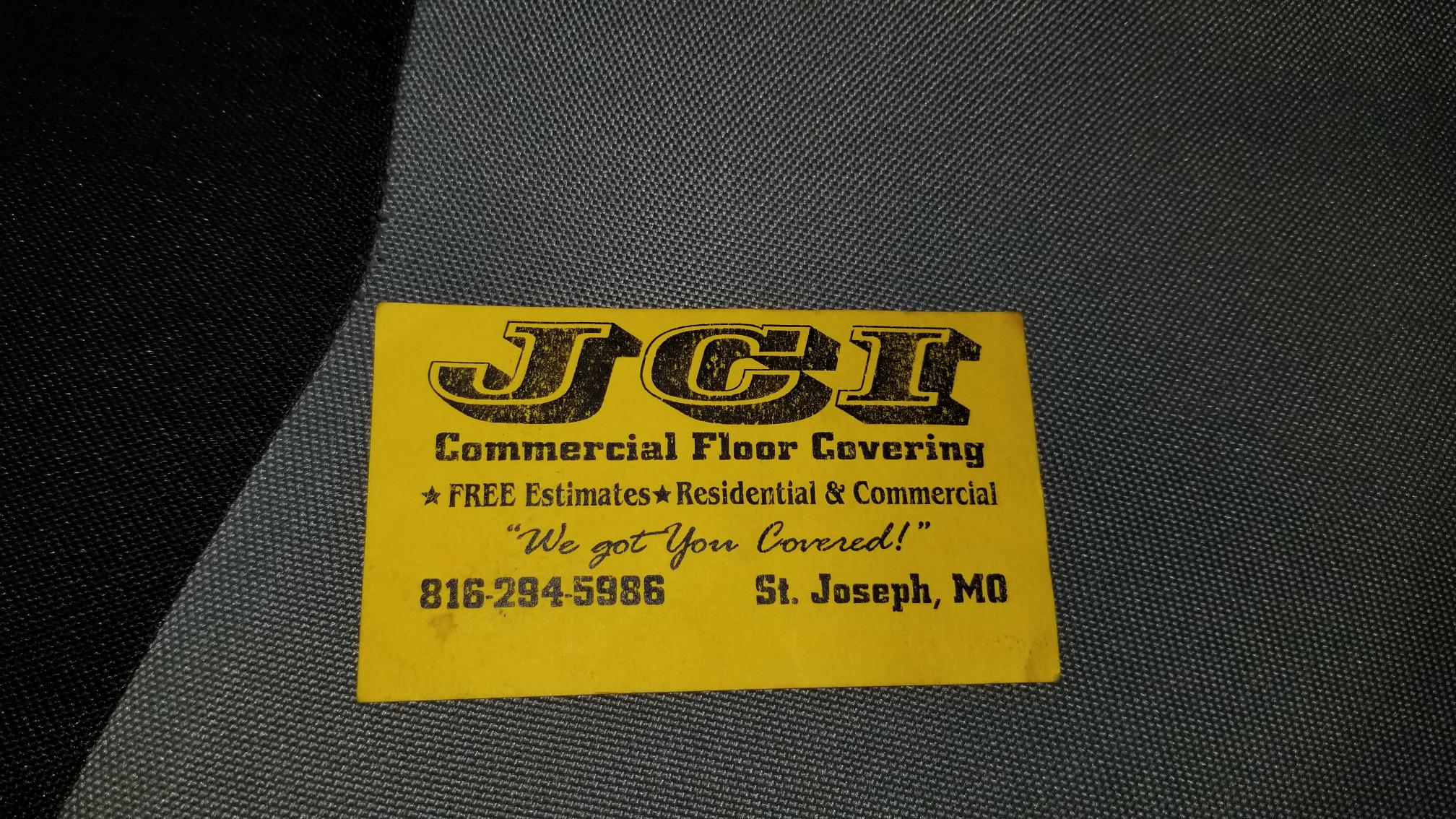
soooo it looks so simple but I've been looking all day! FONT ID PLEASE
So this customer like the style font of the JCI, I thought it looked simple enough and I could easily find it, and turns out im about to lose my mind !!